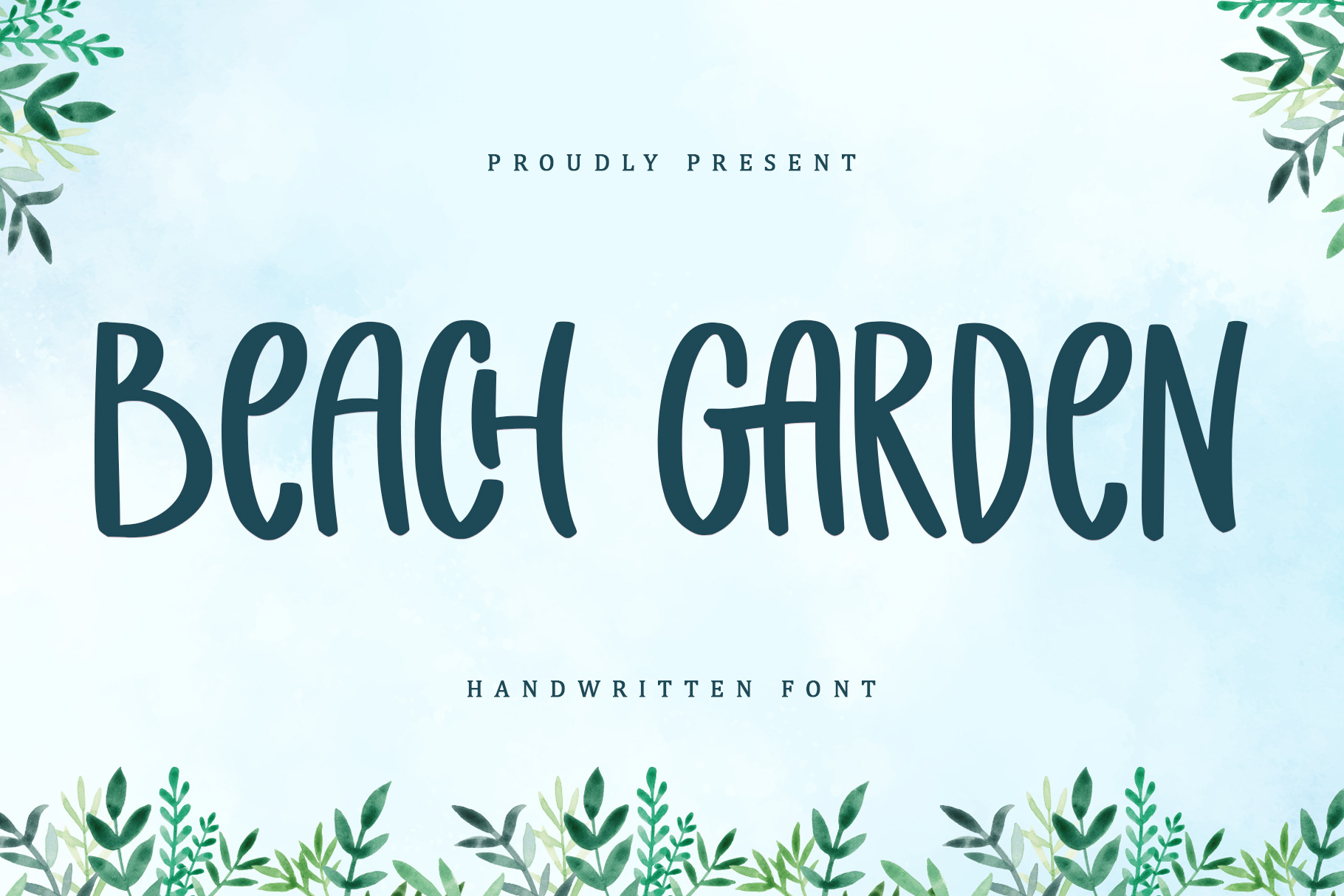
Beach Garden | Handwritten Font
Beach Garden is a lovely, romantic handwritten font perfect for special occasions. Its classic, timeless style will bring a touch of elegance and sentimentality to any project. Its delicate, flowing letters offer a soft, dreamy feel that captures the essence of love and romance. This font is PUA encoded which means you can access all glyphs and swashes effortlessly!